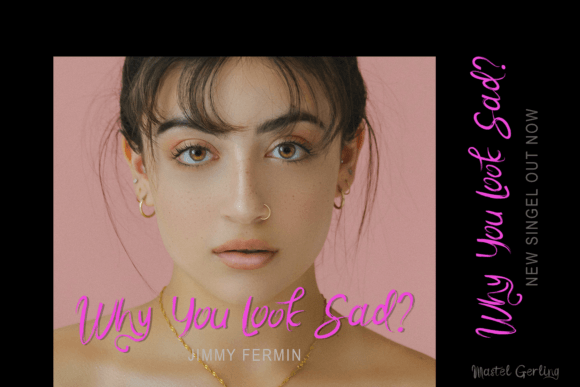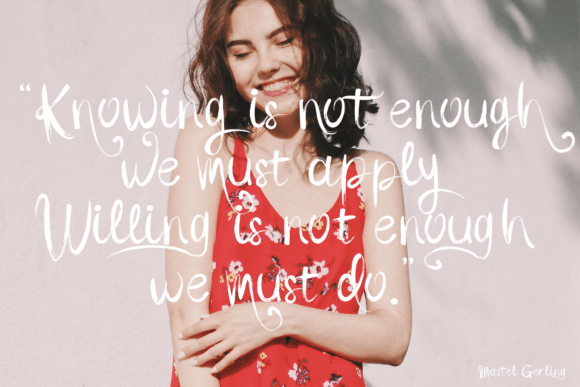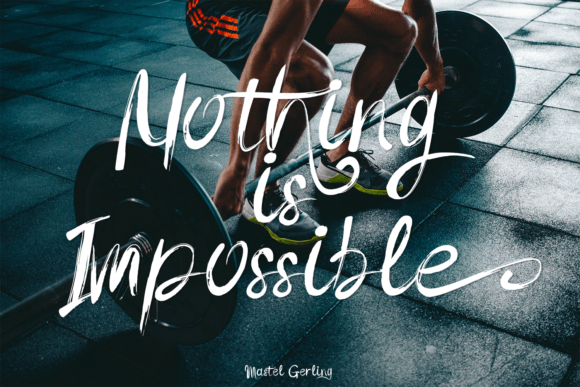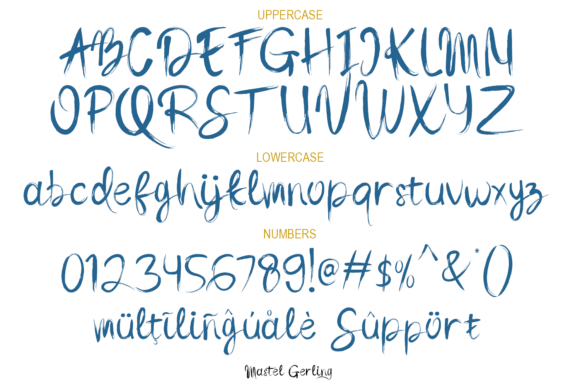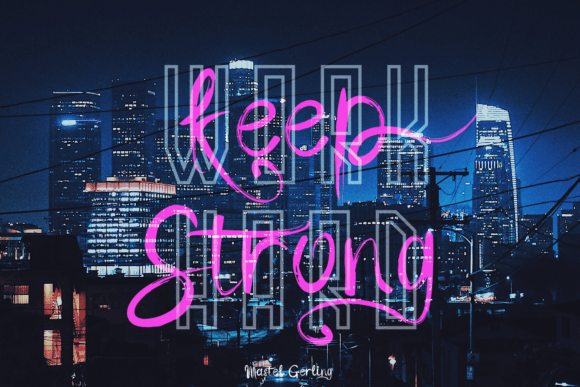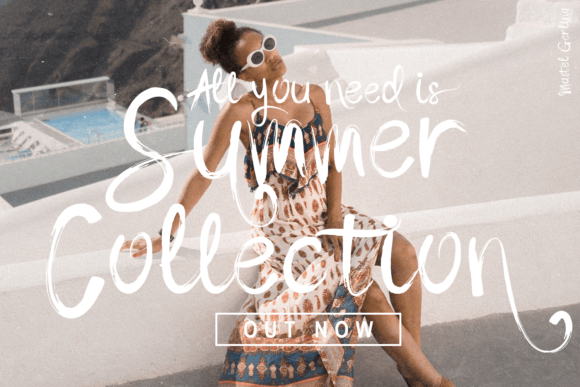
Introduction to Mastel Gerling Font Font
Fonts play a crucial role in design, and the Mastel Gerling Font font is a typeface that brings both character and versatility to any project. Whether you’re working on a branding project, a website, or a print design, the Mastel Gerling Font font offers a unique style that can elevate your work.
Mastel Gerling is a modern handwritten Brush.
This font is perfect for poster design, book covers, merchandise, fashion campaigns, newsletters, branding, advertising, magazines, greeting cards, album covers, quote designs, and more .
Key Features of Mastel Gerling Font Font
Why Choose Mastel Gerling Font Font?
The Mastel Gerling Font font is more than just a typeface – it’s a design tool that helps you communicate your message with style and clarity. Its unique character set and versatile design make it suitable for a wide range of applications, from elegant invitations to bold headlines.
With its carefully crafted letterforms and balanced proportions, the Mastel Gerling Font font ensures readability and visual appeal across all mediums.
What makes Mastel Gerling Font font special?
The Mastel Gerling Font font stands out with its unique design, exceptional readability, and versatility across various design applications.